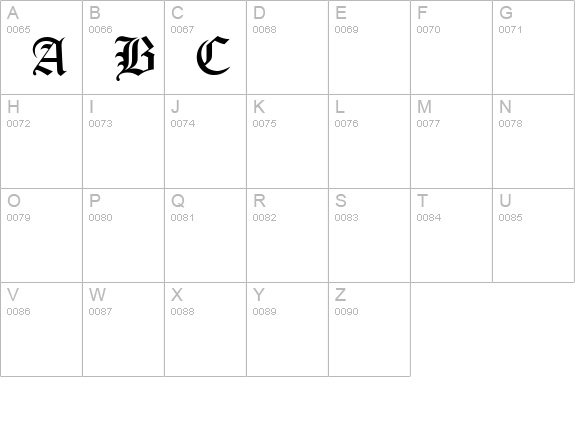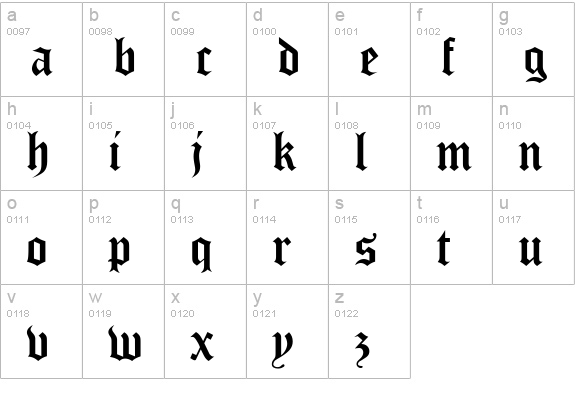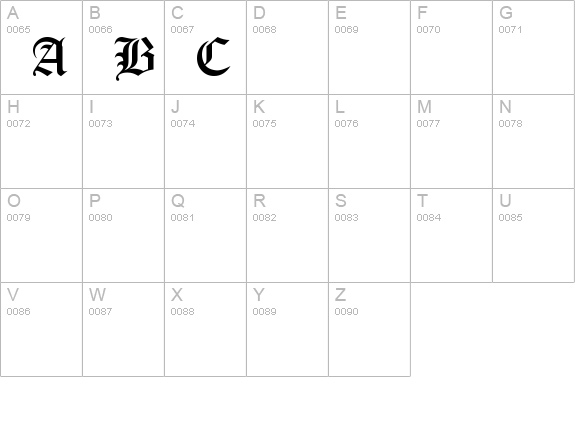
waxwork DEMO Font Details
Introducing the captivating Waxwork DEMO font, a truly unique and artistic typeface that exudes a sense of vintage charm and modern flair. This font is like a work of art in itself, with its intricate details and stylish curves that effortlessly catch the eye. What makes Waxwork DEMO font even more special is that it is available for free download at FontsMarket.com. Yes, you read that right - this stunning font can be yours at no cost, allowing you to add a touch of elegance and sophistication to your projects without breaking the bank. Whether you're designing a poster, creating a logo, or working on a branding project, Waxwork DEMO font is sure to make a lasting impression. Its versatility and timeless appeal make it a must-have in any designer's toolkit. So why wait? Download Waxwork DEMO font today and elevate your designs to new heights of creativity and style.